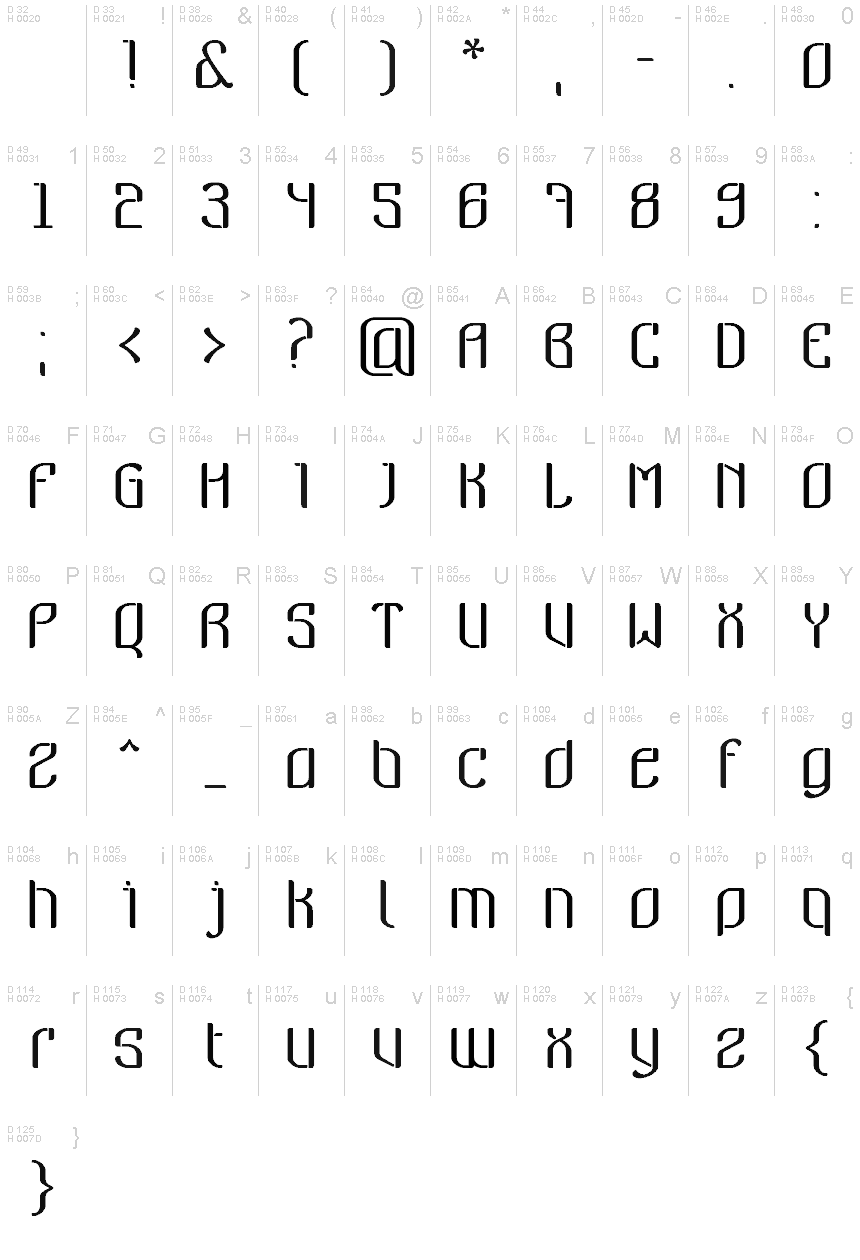
nymeria
Nymeria is a striking display font that exudes a distinctly techno-inspired aesthetic. Designed by Anja Pöchhacker, this light, condensed font boasts a bold, angular construction that immediately grabs the viewer's attention. The sharp, geometric letterforms convey a sense of technological sophistication and futuristic flair, making Nymeria an ideal choice for a wide range of digital and print applications, from sleek user interfaces to eye-catching event branding.
Its clean, minimalist appearance lends itself well to modern, avant-garde design projects that seek to convey a sense of innovation and cutting-edge style.
AnjaPchhacker: nymeria Light: 2012